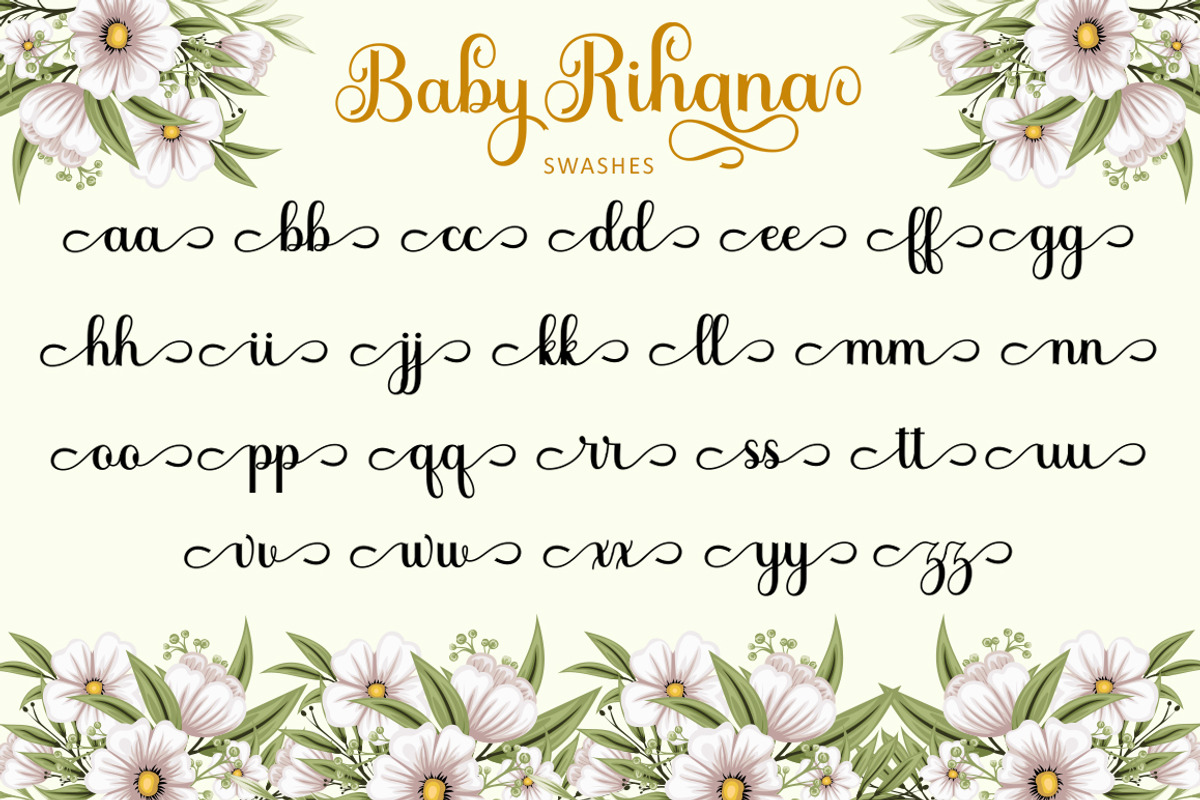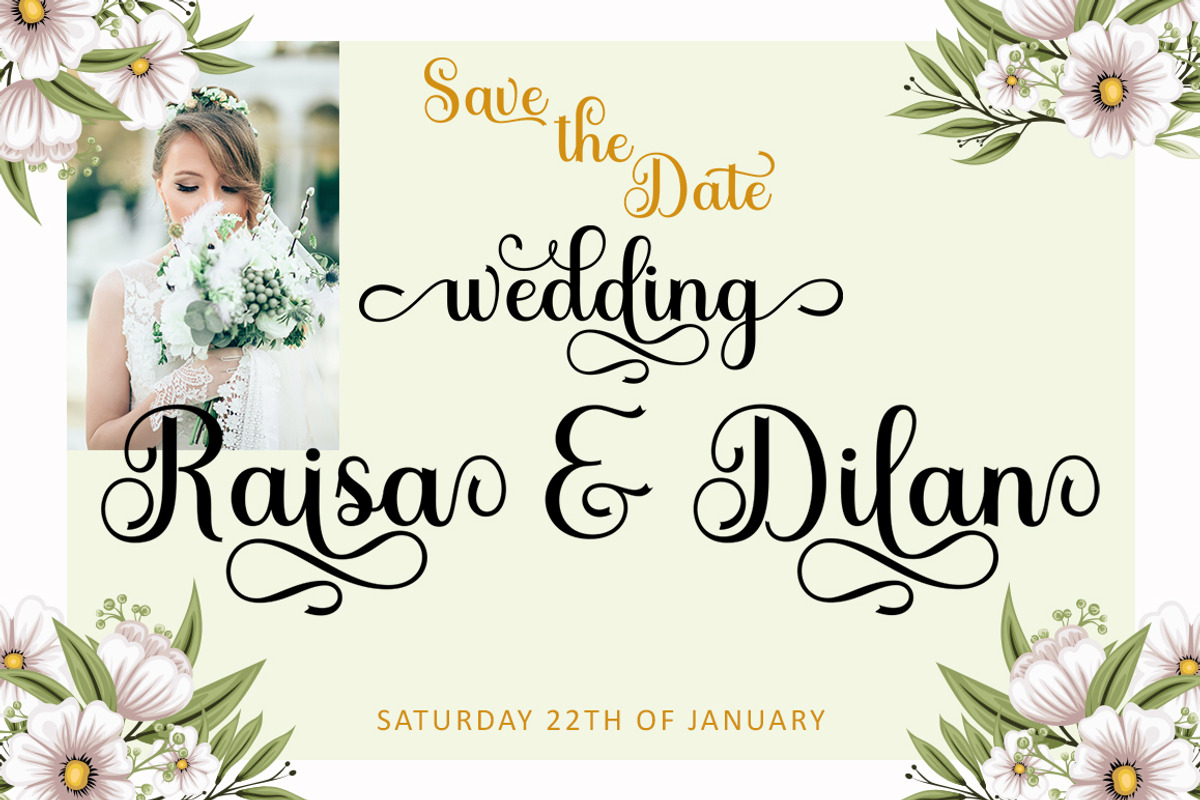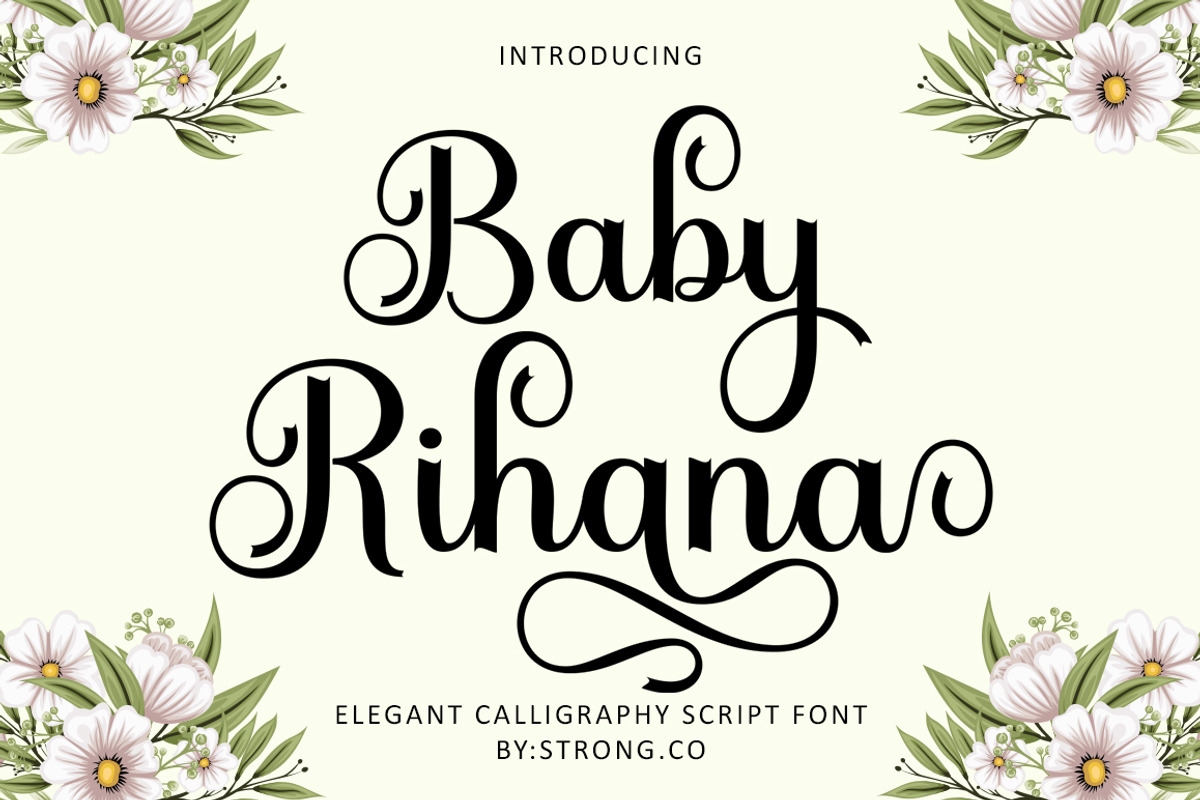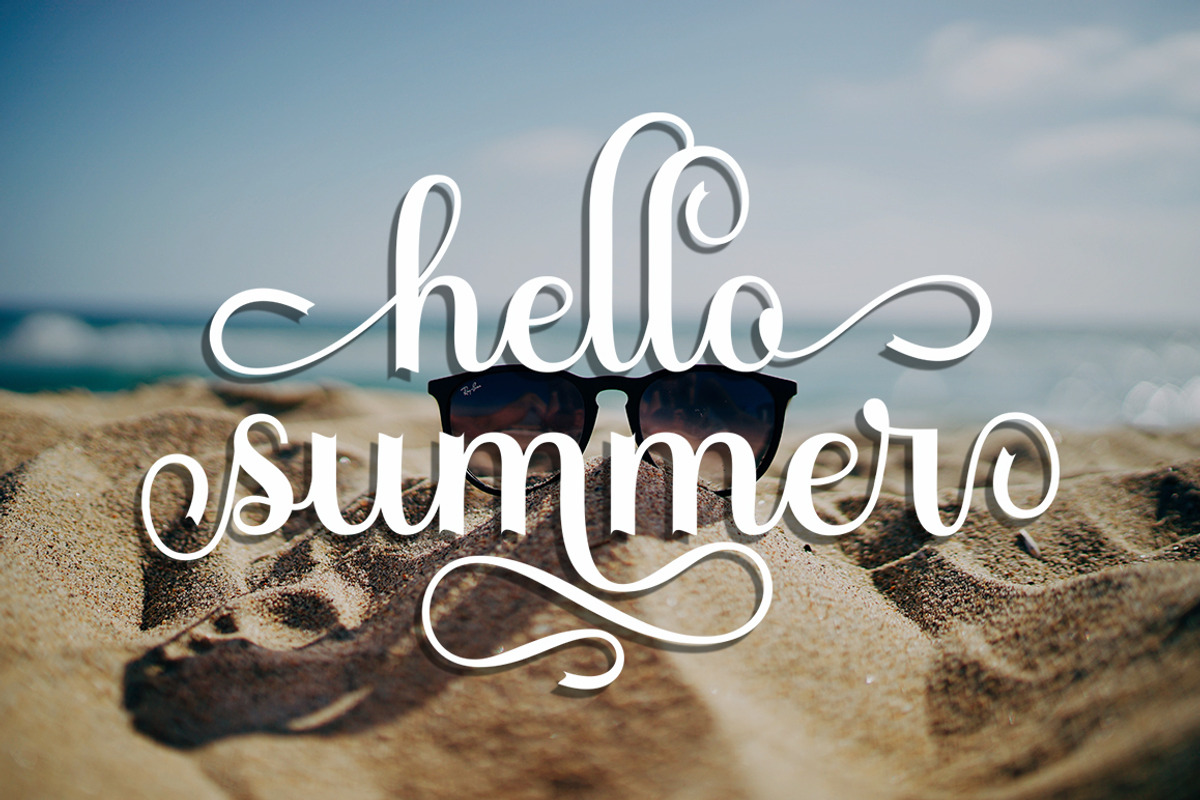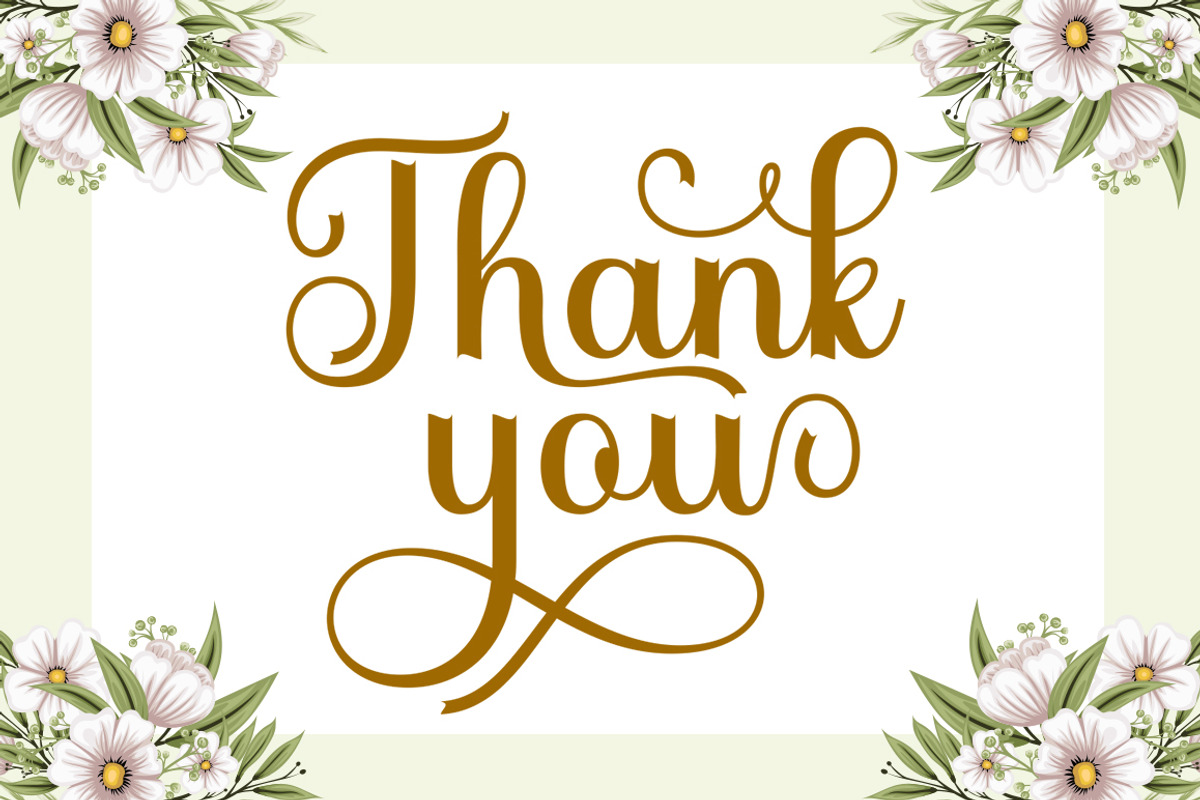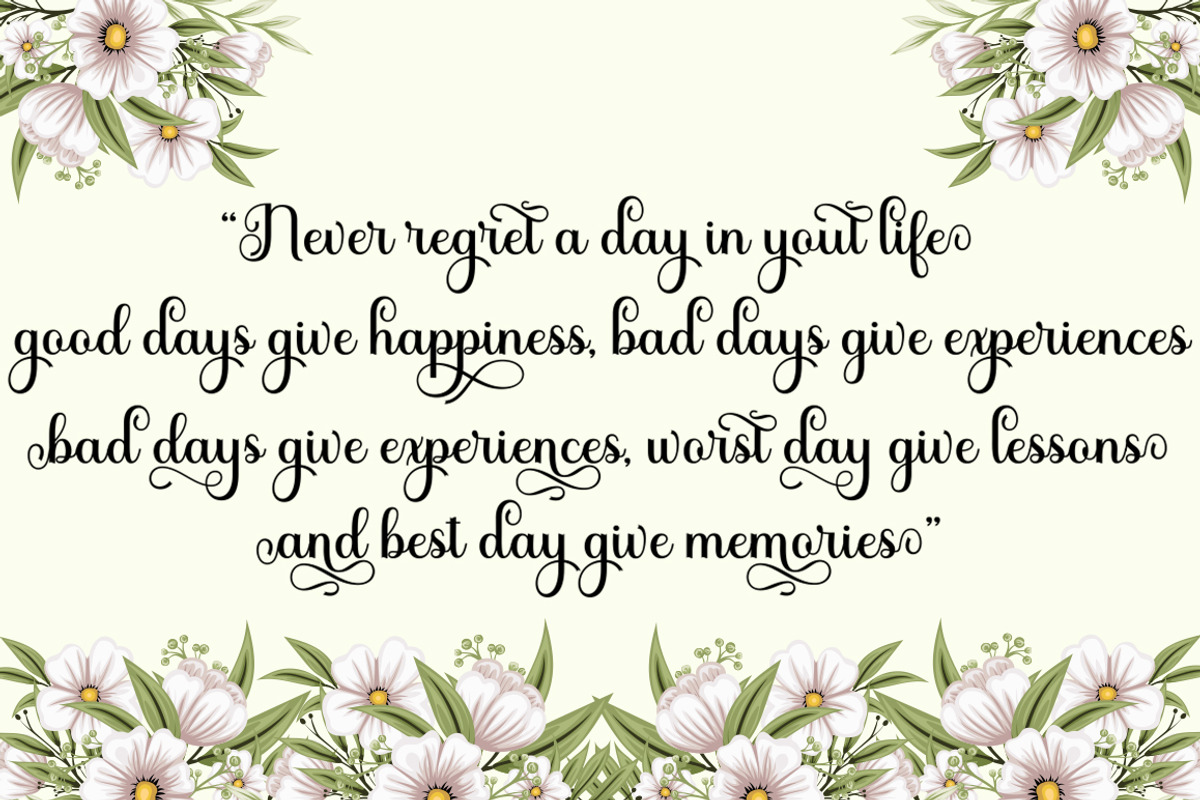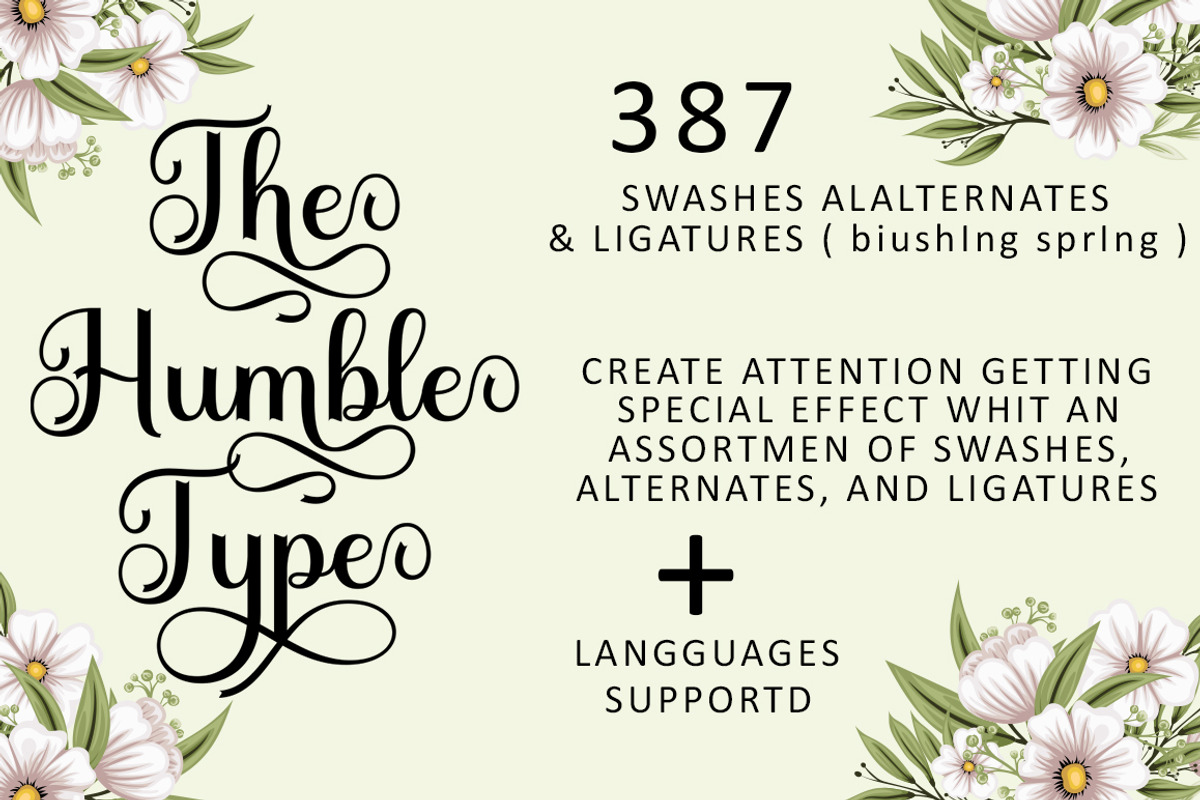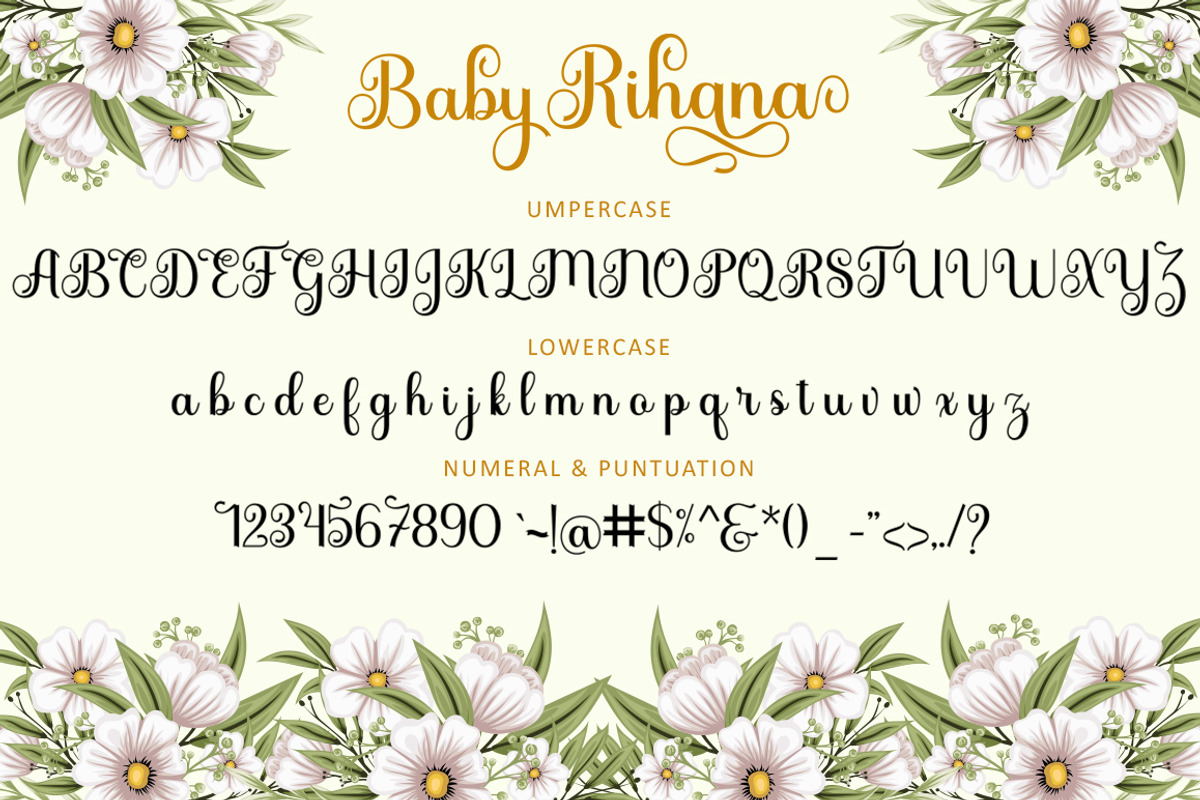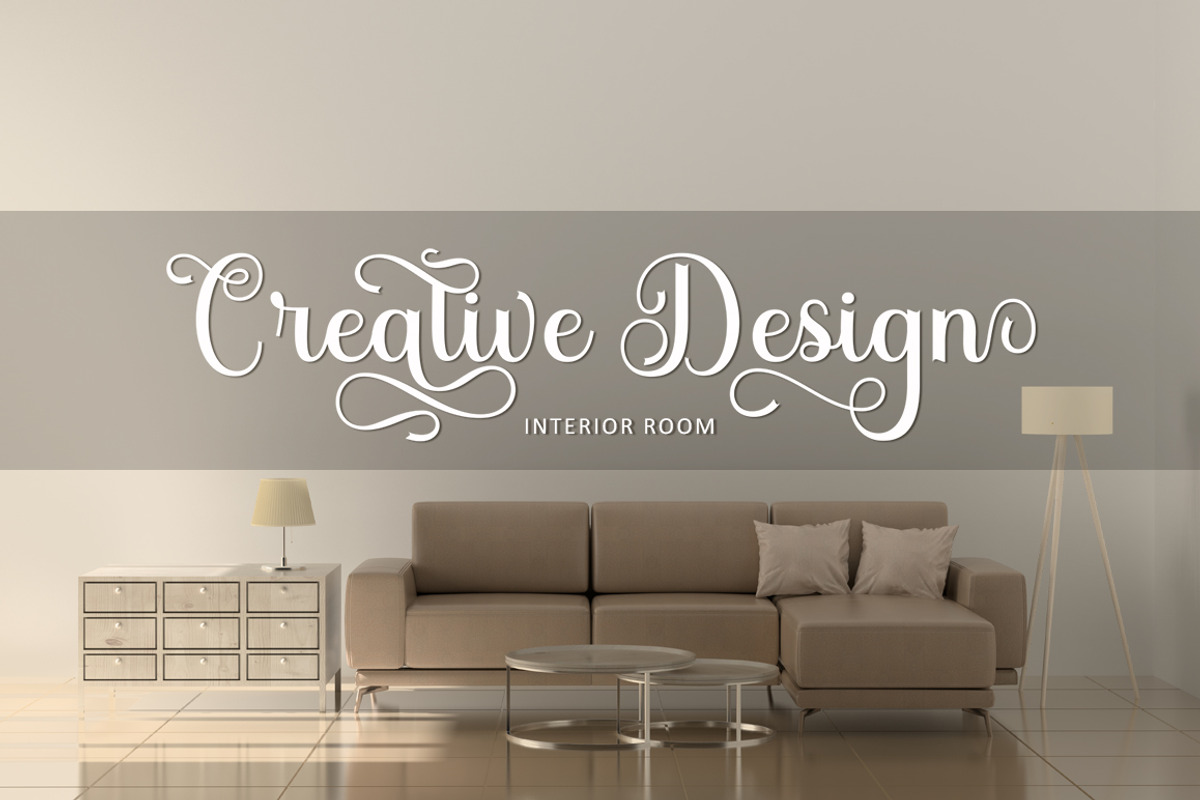
Baby Rihana
Baby Rihana is a smooth, elegant and flowing handwritten font. It has a very well balanced character and as a result it fits into a wide range of designs. Blushing's history features varied baselines, smooth lines, beautiful glyphs and stunning alternatives. Add to your most creative ideas and see how they make it happen!
Baby Rihana has 387 Alternatives, including multi-language support. With OpenType features with alternative styles and elegant binding. The OpenType feature works automatically, but you can access it manually and for the best results necessary for your creativity in combining these Glyph variations.